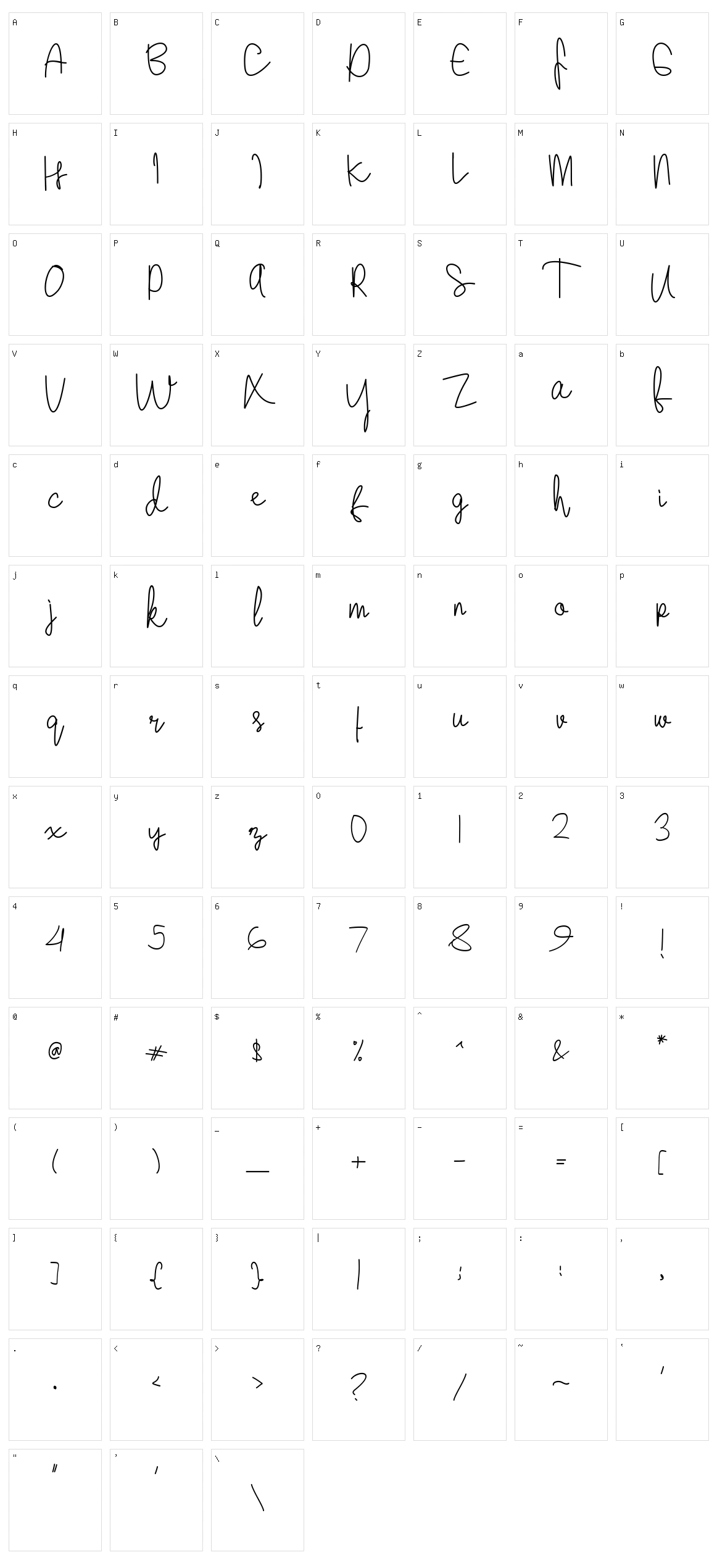
The free font I miss you but i hate you is carefully designed by Bongkeng Art Studio, showcasing a thoughtful balance of creativity and usability and falls under the Script font style. When you download the ZIP file, it contains only 26.8 KB of font files, making it lightweight and quick to download. Please review the license details below to understand permitted usage and distribution rights. If license information is not available, we recommend using this font for personal projects only or contacting the author directly for commercial usage permissions.